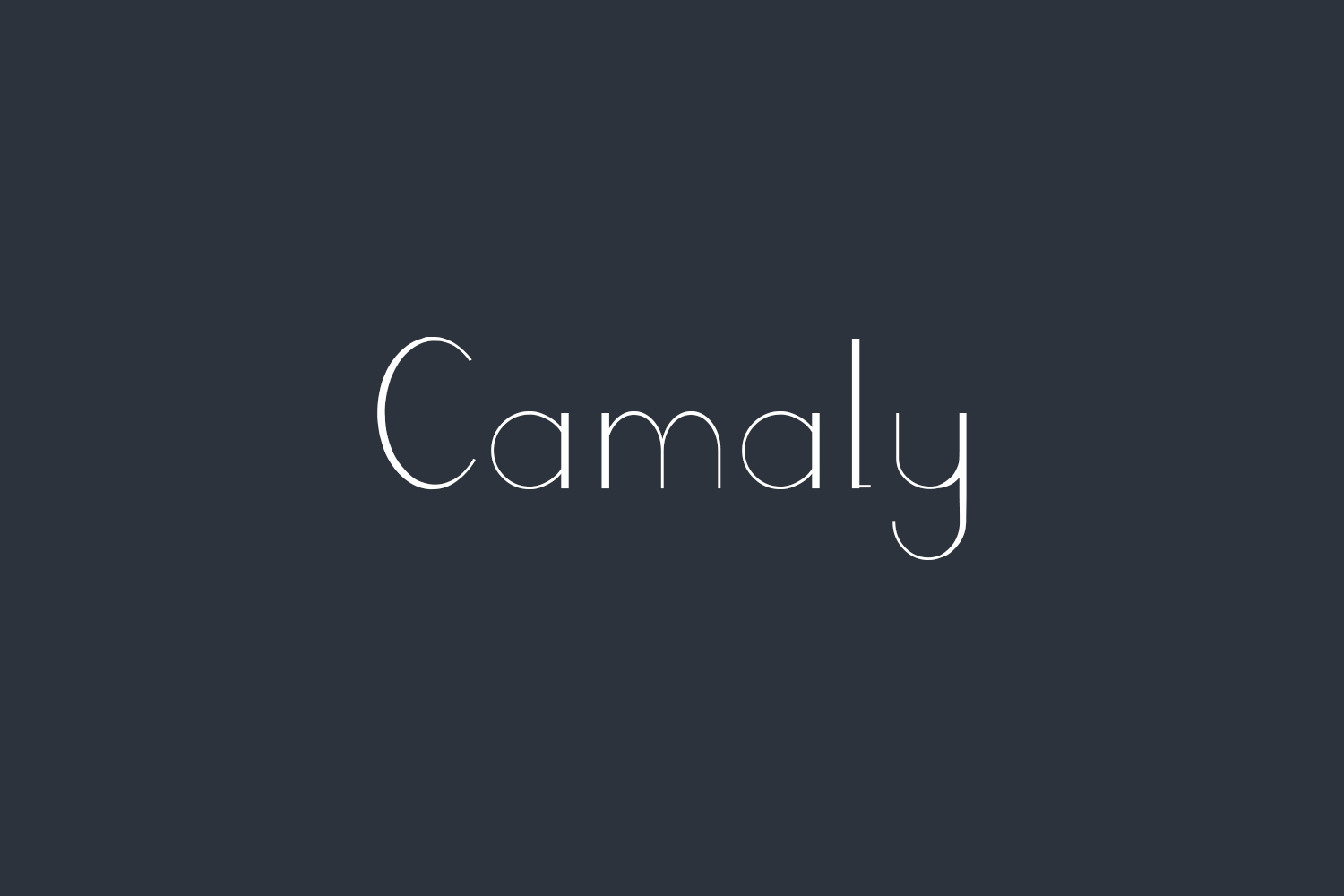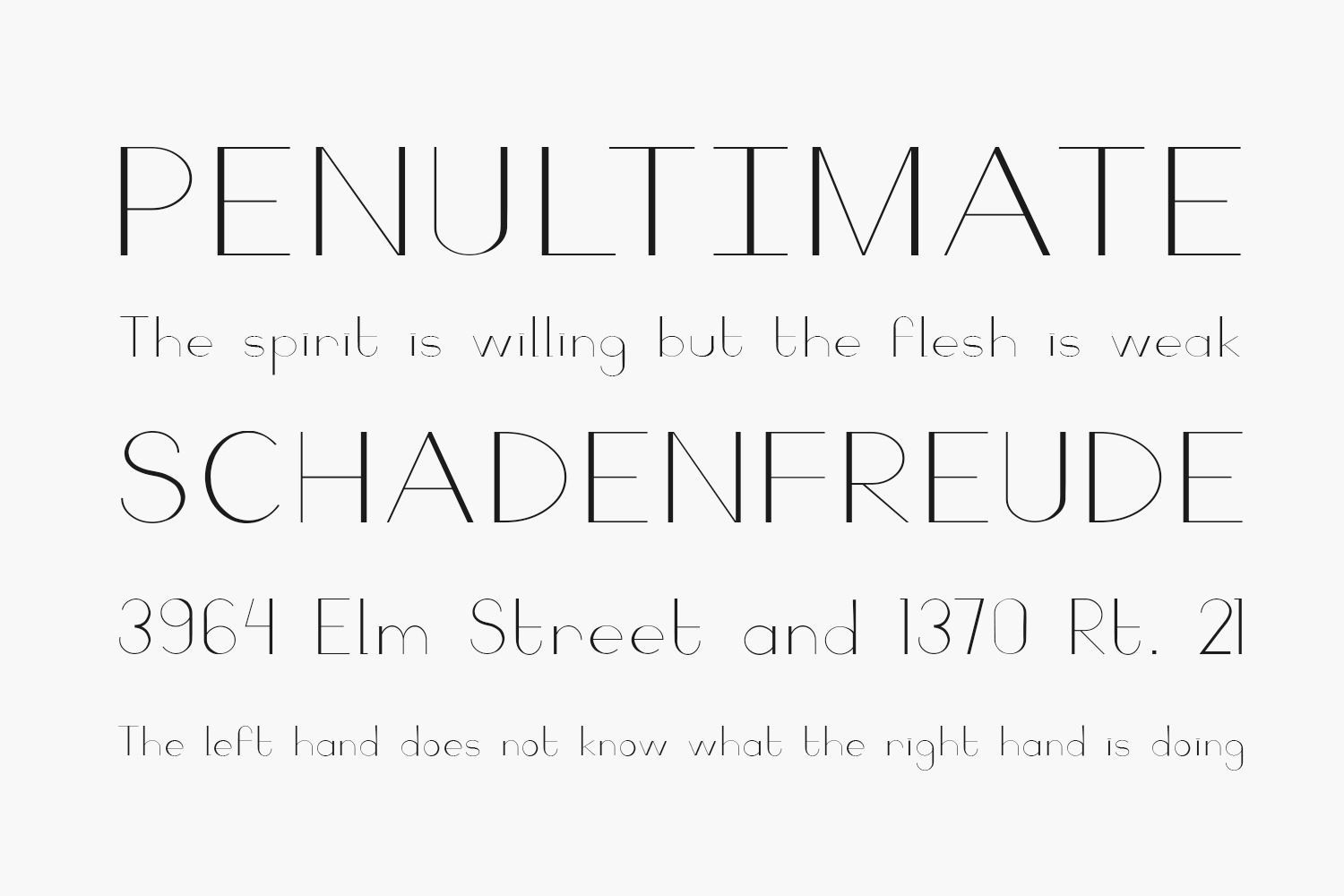
Camaly Free Font is a thin and elegant sans serif font with an incredibly modern style. Fall in love with its unique flavor, and turn any design idea into a piece of art. Camaly Free Font was designed by Kushal Jain and is free for personal use only. Please purchase the full version for commercial use.